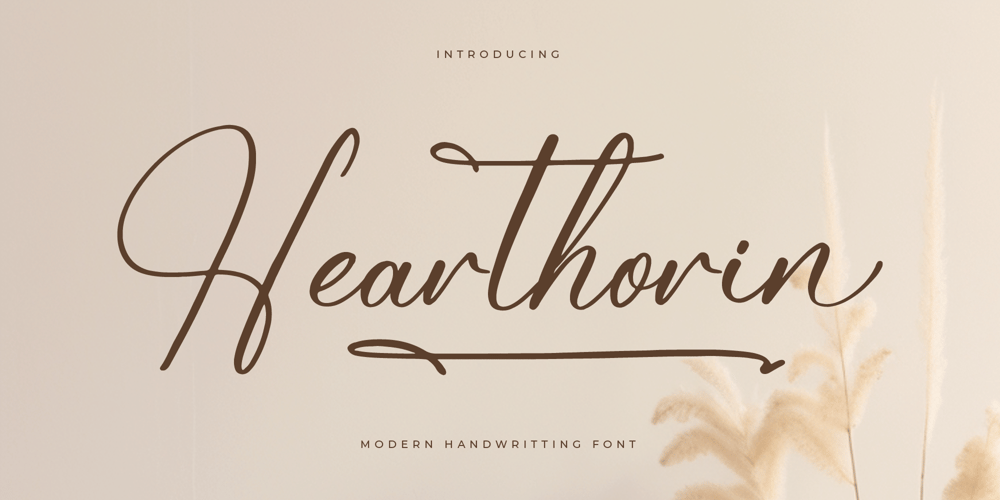
Hearthorin
Hearthorin font
Hearthorin Font Family was designed by Heru Utama Putra and published by Letterena Studios. Hearthorin contains 2 styles and family package options. Hearthorin – Modern Handwriting Font , from Letterena, is a Luxury Script font, suitable for any projects such as: logos, branding projects, homeware designs, product packaging, mugs, quotes, posters, shopping bags, t-shirts, book covers, name card, invitation cards, greeting cards, label, photography, watermark, special events, and all your other luxury and beautiful projects that need a Luxury Script taste.